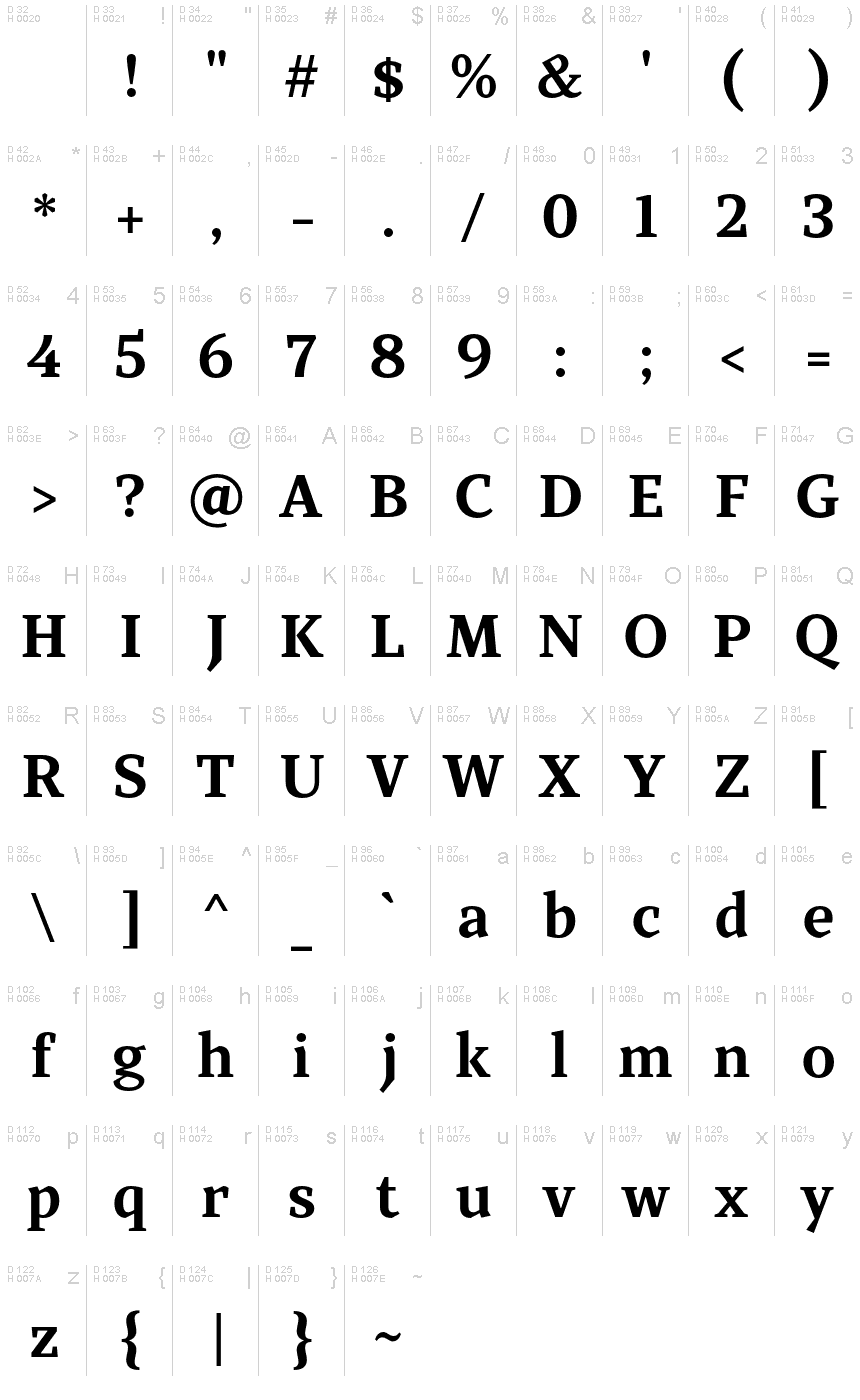
TT Bells Trial Bold
TT Bells Bold is a stunning serif font designed by TypeType Foundry. Its semi-bold weight gives it a strong and confident presence, making it perfect for headlines, titles, and logos. The elegant serifs add a touch of sophistication to any design project, whether it's for a luxury brand, wedding invitations or editorial layout. With its versatility and readability, TT Bells Bold is suitable for both print and digital media. Whether you're designing a high-end fashion magazine or creating branding for a new restaurant, this font will surely make your project stand out.
TT Bells Trial
TypeType: TT Bells Trial Bold: 2017